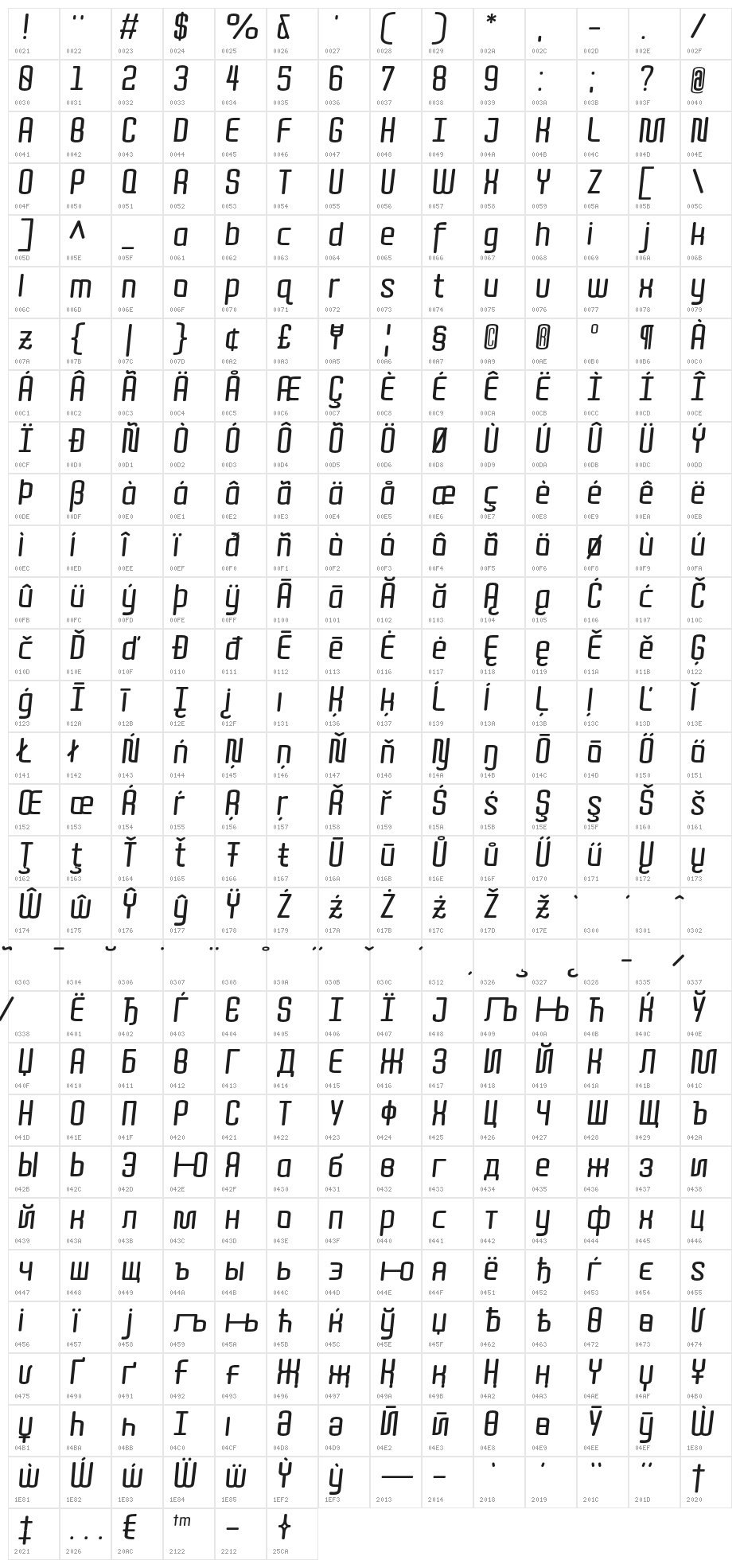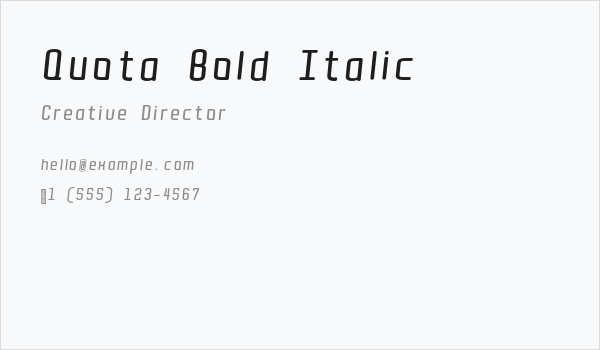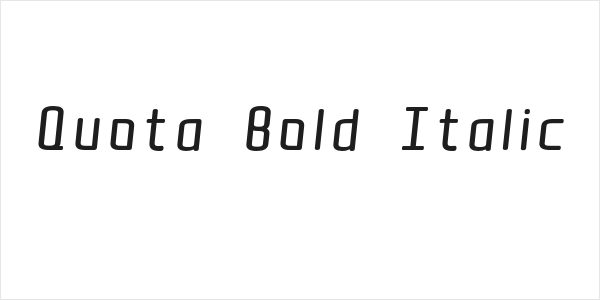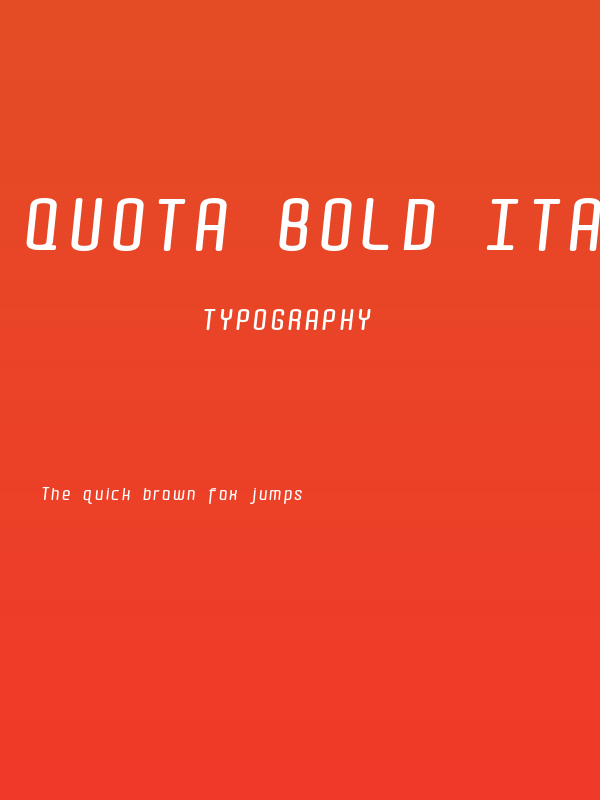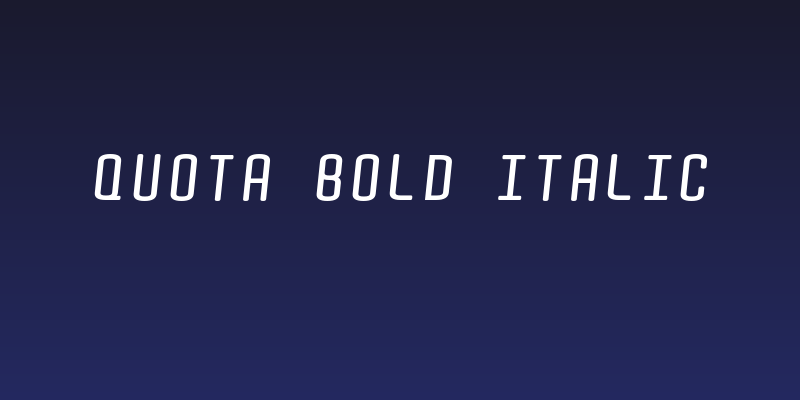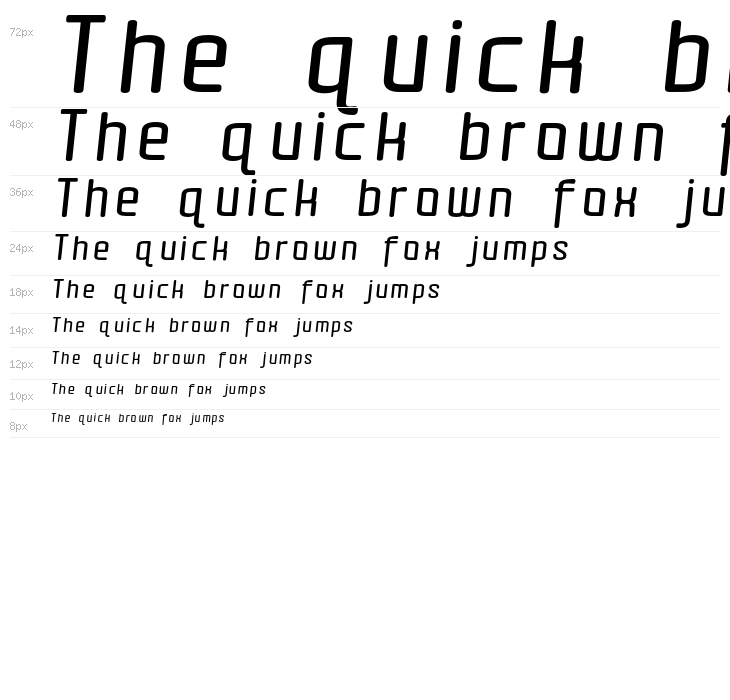
Quota Bold Italic Font
Quota Bold Italic Description
This font features a bold and italicized style with a modern and sleek appearance. The characters are slightly condensed, giving it a compact look while maintaining readability. The strokes are consistent in thickness, providing a medium contrast that enhances its legibility. The rounded edges of the letters add a touch of softness, balancing the boldness of the font. The numerals and special characters are designed to match the overall style, ensuring uniformity across all elements. This font is versatile, suitable for both digital and print media, and can be effectively used in various design projects.
| Use Case | Headlines, Logos, Digital Interfaces |
| Proposed Projects | Ideal for branding, advertising, headlines, and digital interfaces where a modern and bold statement is needed. |